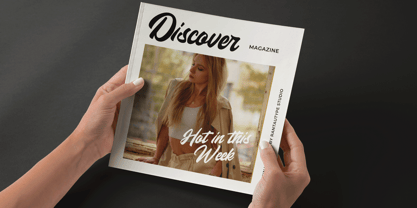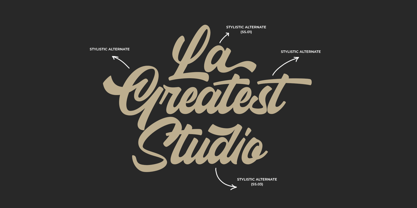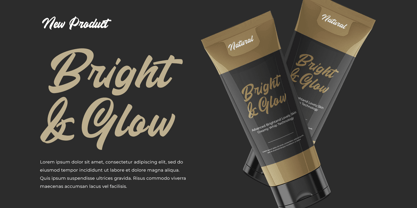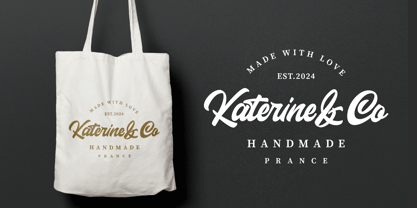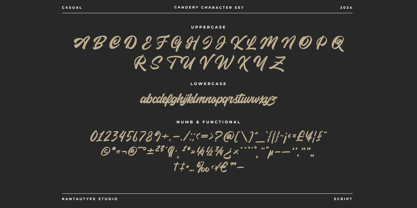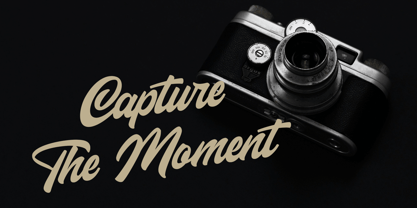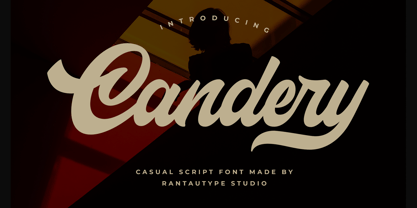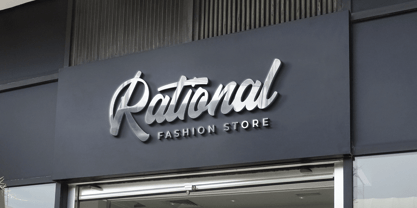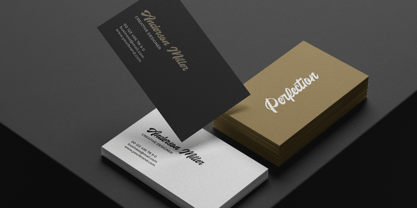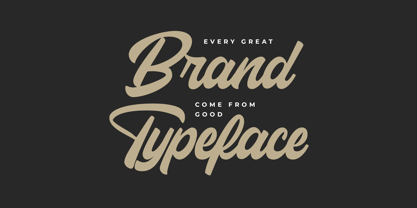
Candery
La familia tipográfica Candery fue diseñada por Yudi Pratama Chandra y publicada por RantauType. Candery contiene 1 estilos. Más información sobre esta familia
Candery is casual script font made with passion and style. Candery bring authentic handwritten with stylist and modern to make your design project stand out! Candery come with more feature with alternate, ligature and already support multilingual support character.
Candery is a perfectly choice for any creative endeavor,modern, chic, lifestyle design such as logotype, title, cover, branding, invitations, wedding designs, display and magazine, social media posts, advertisements, printed quotes, product packaging, corporate brand, product designs, labels, photography, watermarks, special events and any other project with handwritten touch.